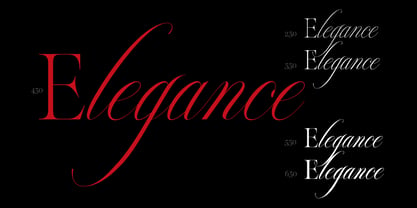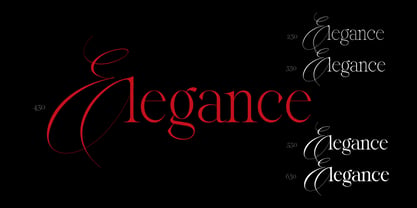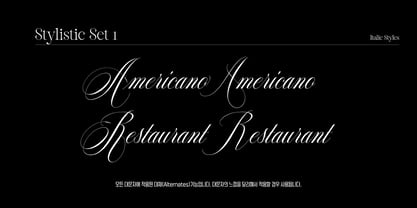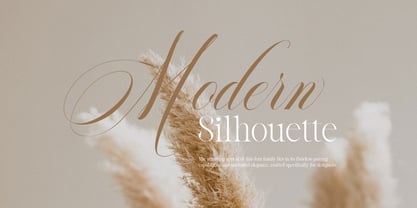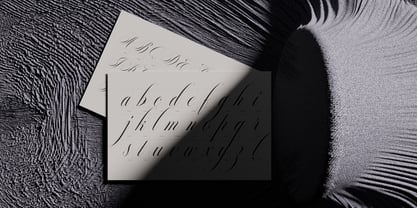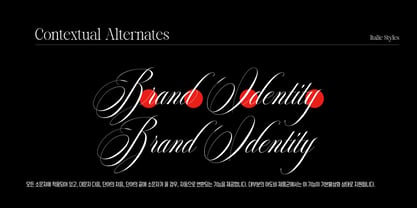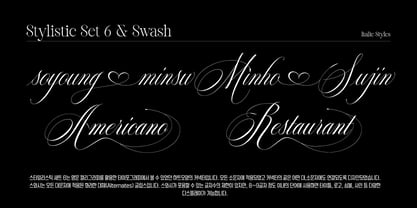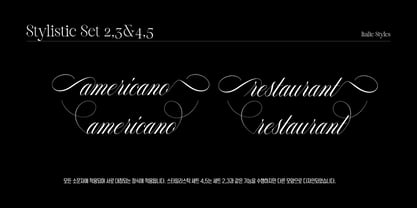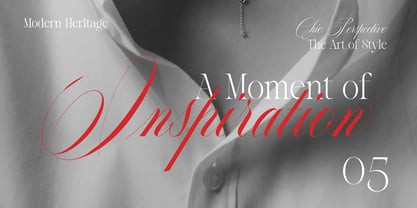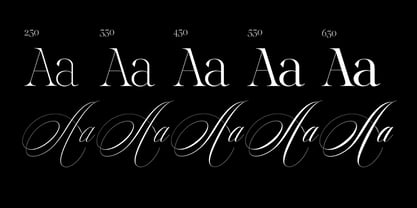
Reichamerina
Die Schriftfamilie Reichamerina wurde von Ryul Davidson entworfen und von Brenners Template veröffentlicht. Reichamerina enthält 10 Stile und Familienpaketoptionen. Mehr über diese Familie
The Reichamerina font family's stunning appeal lies in its flawless pairing capabilities and unrivaled elegance, crafted specifically for discerning designers. Featuring elongated serifs for stability and a meticulously tight kerning system, the Regular Serif style is perfectly calibrated to pair seamlessly with its Italic counterpart. The Italic style seamlessly blends the calligraphic heritage of Copperplate Script with the fluid elegance of Spencerian penmanship, exuding a sense of refined sophistication. By harmonizing high contrast with ornate flourishes, it is designed to evoke both classical authority and a contemporary rhythmic flair. 1. Serif Style Features - Alternates : B,P,R - Ligatures : ai, bi, ci, di, ei, fi, ff, fl, gi, hi, ii, ji, ki, li, mi, ni, oi, pi, ri, si, ti, ui, vi, wi, xi, yi, zi. 2. Italic Style Features - Contextual Alternates : Contextual Alternates intelligently adjust lowercase forms based on their position: after an uppercase letter, at the end of a word, or when initiating a word. - Stylistic Set 1-5. Stylistic Set 1 offers alternate characters for all uppercase letters. Stylistic Sets 2 through 5 feature lowercase alternates designed for symmetrical word flourishes. For a more playful touch,  - Stylistic Set 6 includes a complete set of heart-themed glyphs. - Ligatures : Eff, Mi, Th, ff, fr, gg, gy, ll, wn, wr, zy. - Swash : Swash alternates are available for all uppercase letters—we recommend using them judiciously to maintain the perfect balance in your layout.(Since there is a limit on the number of characters that can fit inside.). *To fully access all OpenType features, we recommend using the Glyphs panel(Adobe apps)
Ryul Davidson, who was deeply engrossed in the analytic basis and interpretation of semiotics, tries to take a different approach to this through the original design of Glyphs. This is to quench the thirst for curiosity pursued by human nature beyond the standard of communication and understanding that Glyphs should have.Elegance cannot have its true value without guaranteeing its meaning and form. Our team, headed by Ryul Davidson, works under the motto of analytic design and interaction of communications.